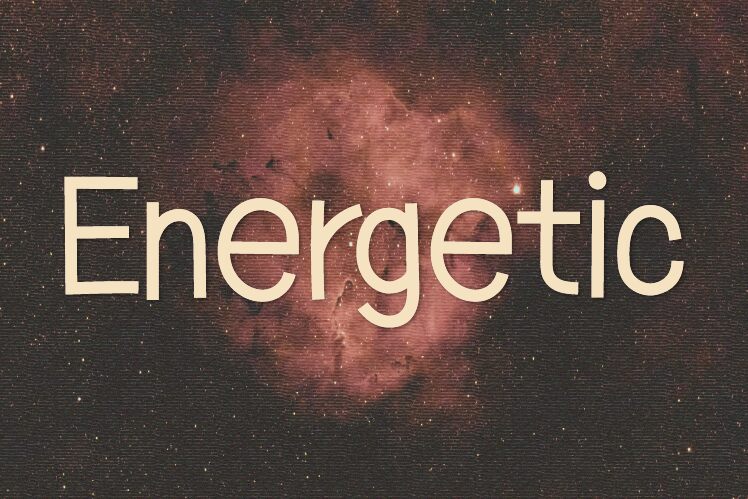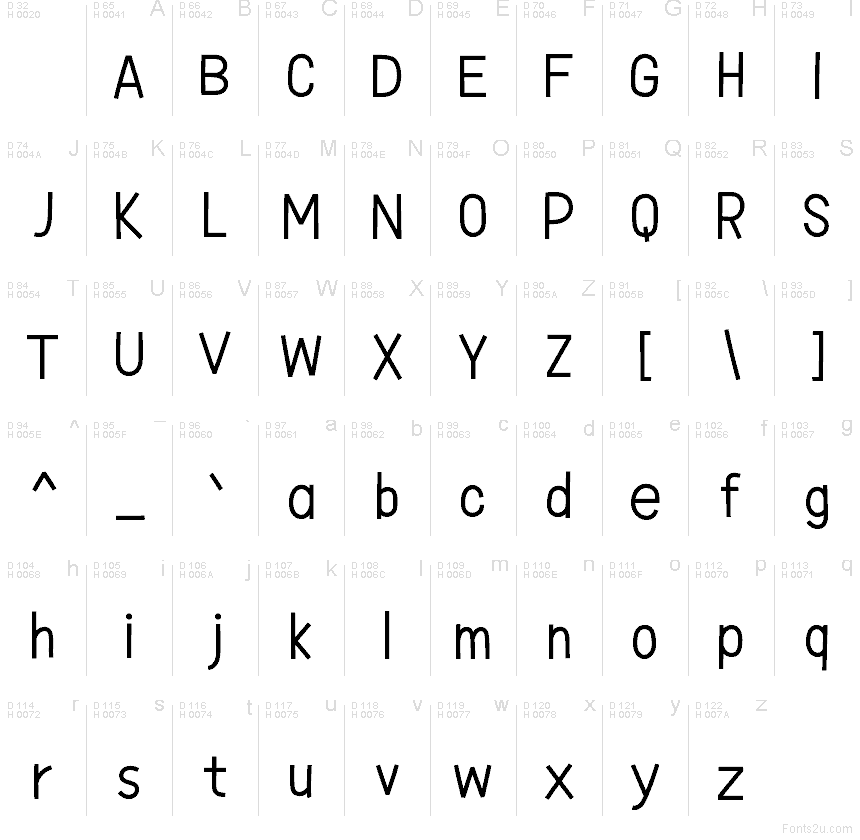
Energetic
Energetic font by HannaBie Creative Studio is a free comic display typeface that swaps messy cartoon wobble for clean, lively lines. The letters are tall and slightly compressed with a smooth, even stroke, so you get a playful voice that’s still easy to read in tight layouts. It feels bouncy without being chaotic, making it great when you need fun typography that stays on-message.
Using Energetic, you can give kids’ branding, playful logos, snack or toy packaging, YouTube thumbnails, posters, and social media graphics a bright, upbeat tone. This free font holds its shape well at larger sizes, and it pairs nicely with a simple geometric sans for body copy to keep the overall look fresh and balanced.